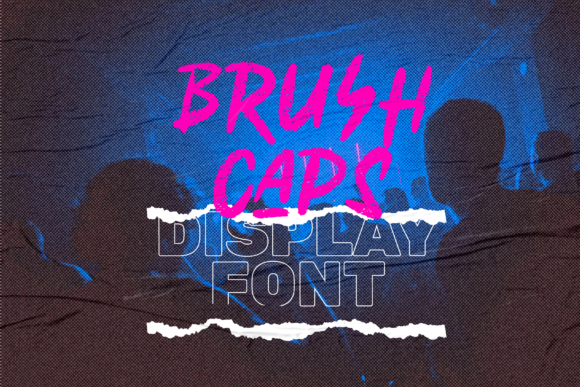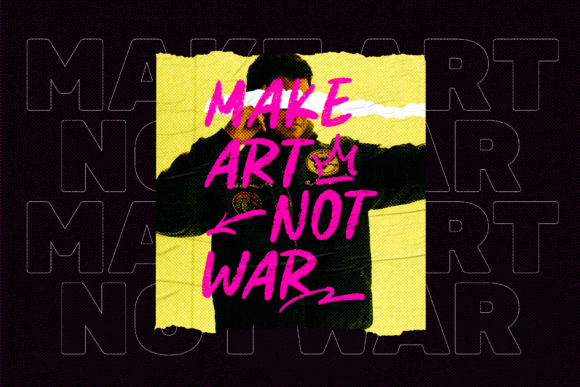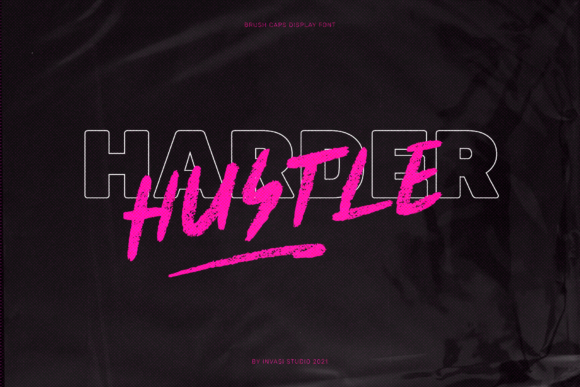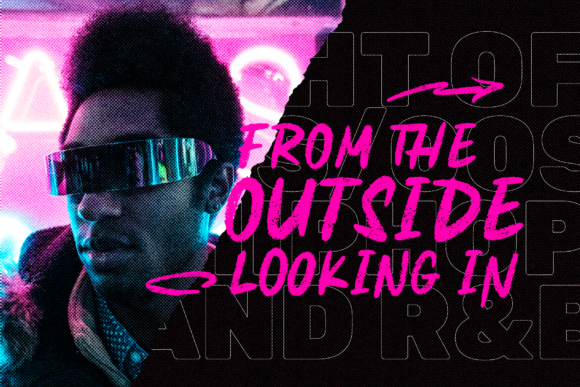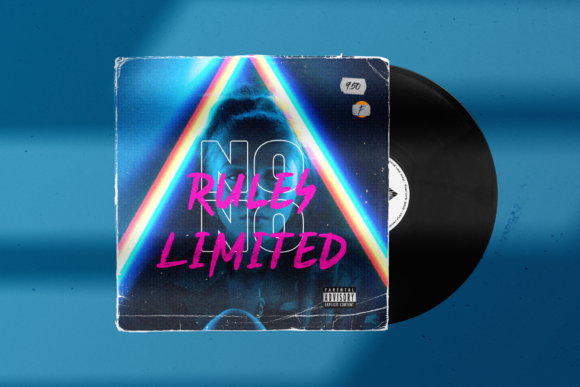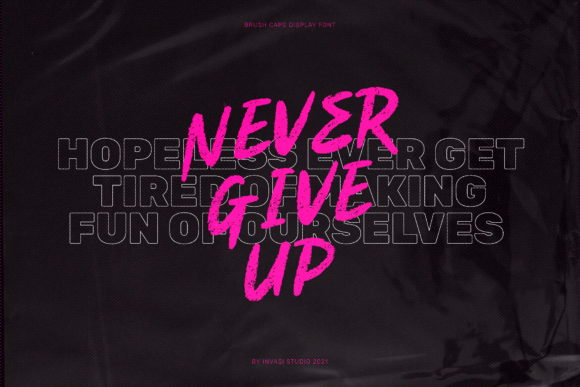
Unleash Your Creativity with Badboy Alliance Font: A Graffiti-Styled Display Font
Are you a designer or crafter looking for a font that can add a touch of street art vibe to your designs? Look no further than the Badboy Alliance Font. This cool, graffiti-styled display font is perfect for creating eye-catching designs that stand out from the crowd. In this article, we’ll take a closer look at the Badboy Alliance Font, its features, and how you can use it to take your designs to the next level.
What is Badboy Alliance Font?
Badboy Alliance is a graffiti-styled display font that is designed to give your designs a street art vibe. The font features bold, edgy letters with a rough, hand-painted look that is reminiscent of street art. The font is perfect for designs that require a bold, attention-grabbing look, such as t-shirts, sportswear, logos, advertisements, clothing, and more.
Key Features of Badboy Alliance Font
The Badboy Alliance Font has several key features that make it a great choice for designers and crafters. Some of its key features include:
- Graffiti-styled design: The font features a bold, graffiti-styled design that is perfect for adding a street art vibe to your designs.
- Display font: The font is designed as a display font, making it perfect for headlines, titles, and other large text elements.
- Street art vibe: The font has a rough, hand-painted look that gives it a street art vibe.
- Versatile: The font is versatile and can be used for a wide range of designs, including t-shirts, sportswear, logos, advertisements, clothing, and more.
How to Use Badboy Alliance Font in Your Designs
The Badboy Alliance Font is easy to use and can be incorporated into your designs in a few simple steps. Here are some tips on how to use the font in your designs:
- Choose the right design: The Badboy Alliance Font is perfect for designs that require a bold, attention-grabbing look. Choose designs that will showcase the font’s unique features, such as t-shirts, sportswear, logos, and advertisements.
- Experiment with colors: The font looks great in bold, bright colors. Experiment with different colors to find the one that works best for your design.
- Pair with other fonts: The Badboy Alliance Font can be paired with other fonts to create a unique look. Try pairing it with a sans-serif font for a bold, modern look.
- Use it sparingly: The Badboy Alliance Font is a bold font and should be used sparingly. Use it for headlines and titles, and a simpler font for body text.
Benefits of Using Badboy Alliance Font
The Badboy Alliance Font has several benefits that make it a great choice for designers and crafters. Some of its benefits include:
- Unique look: The font has a unique, graffiti-styled design that will give your designs a street art vibe.
- Versatile: The font is versatile and can be used for a wide range of designs.
- Easy to use: The font is easy to use and can be incorporated into your designs in a few simple steps.
- High-quality: The font is high-quality and will look great in any design.
The Badboy Alliance Font is a cool, graffiti-styled display font that is perfect for designers and crafters looking to add a street art vibe to their designs. With its bold, edgy letters and rough, hand-painted look, this font is sure to make your designs stand out from the crowd. Whether you’re designing t-shirts, sportswear, logos, advertisements, clothing, or more, the Badboy Alliance Font is a great choice. So why wait? Download the Badboy Alliance Font today and start creating eye-catching designs that will leave a lasting impression.